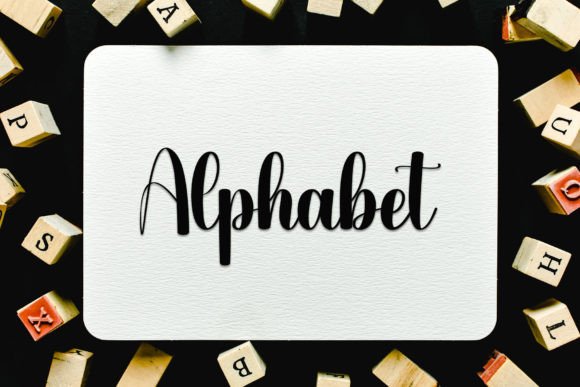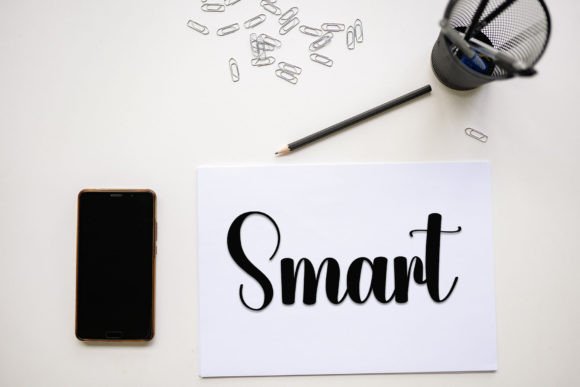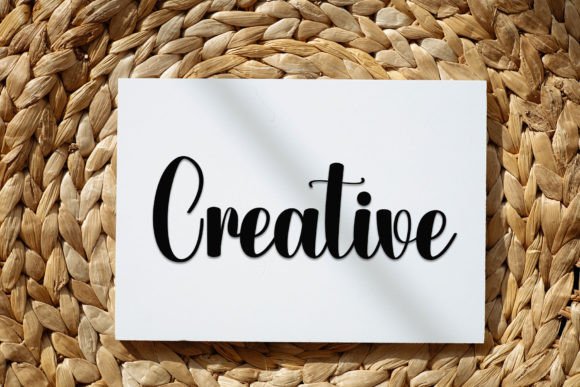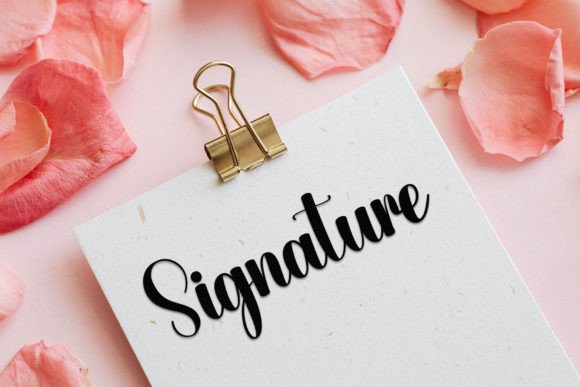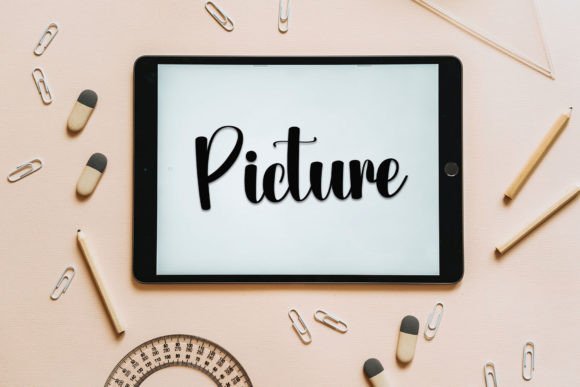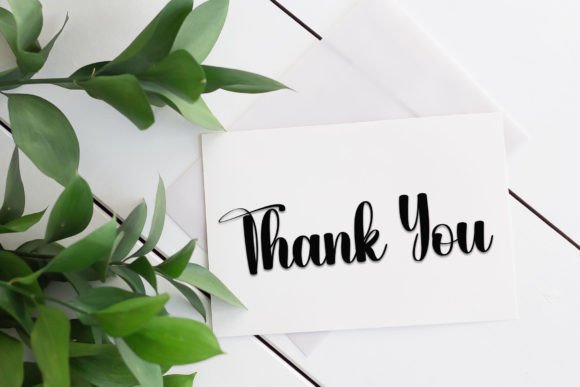
Introducing Handmade Font: Elevate Your Designs with Elegance
Are you on the lookout for a font that adds a touch of sophistication and charm to your projects? Look no further than the Handmade Font, a beautiful handwritten font that exudes elegance and refinement. With its unique and timeless style, this font is sure to capture the hearts of designers and crafters alike.
The Beauty of Handmade Font
Handmade Font is a neat and beautiful handwritten font that boasts an elegant touch, making it perfect for a wide range of projects. Whether you’re working on a logo, branding materials, or marketing collateral, this font is sure to impress. Its incredibly distinct style sets it apart from other fonts, giving your designs a unique and recognizable flair.
What Makes Handmade Font Special?
So, what makes Handmade Font so special? Here are just a few reasons why designers and crafters are falling in love with this beautiful font:
- Elegant and Refined: Handmade Font features an elegant and refined style that adds a touch of sophistication to any project.
- Unique and Timeless: This font’s unique style ensures that your designs will stand out from the crowd and remain timeless for years to come.
- Versatile: Handmade Font is perfect for a wide range of projects, from logos and branding materials to marketing collateral and more.
- Easy to Read: Despite its elegant style, Handmade Font is easy to read, making it perfect for body text and other applications where legibility is key.
How to Use Handmade Font in Your Designs
- Pair it with Other Fonts: Handmade Font pairs perfectly with other fonts, making it easy to create stunning contrast and visual interest in your designs.
- Experiment with Colors: The elegant style of Handmade Font lends itself well to a wide range of colors, so don’t be afraid to experiment and find the perfect hue for your project.
- Use it for Headings and Titles: Handmade Font is perfect for headings and titles, where its elegant style can really shine.
Why Designers and Crafters Love Handmade Font
Designers and crafters love Handmade Font for a variety of reasons. Here are just a few:
- Unique Style: Handmade Font’s unique style ensures that designs stand out from the crowd and capture the attention of the viewer.
In conclusion, Handmade Font is a beautiful and elegant handwritten font that is perfect for designers and crafters looking to add a touch of sophistication to their projects. With its unique and timeless style, this font is sure to capture the hearts of anyone who sees it. So why wait? Fall in love with Handmade Font today and start creating spectacular designs that will leave a lasting impression!
Key Features of Handmade Font
| Font Style | Handwritten |
| Characters | Uppercase, Lowercase, Numbers, Punctuation |